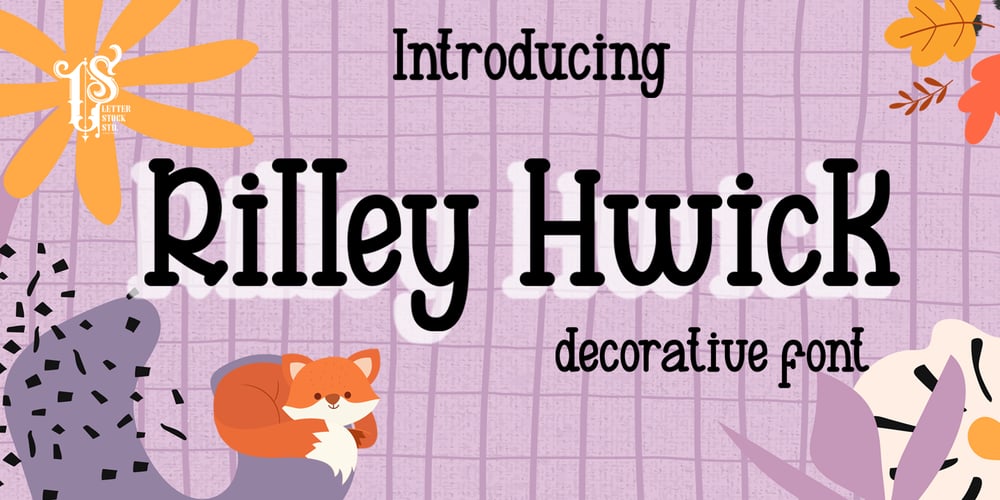
Rilley Hwick Font Family was designed by Studio LetterStock and published by LetterStock. Rilley Hwick contains 1 styles and family package options. Rilley Hwick is a decorative font that was inspired by lettering design that i saw on instagram, and it was crafted by hand to add a natural handmade feeling and i make it clean with pentool.If you looking for decorative font that have a unique style for your title or even branding and logotype, Rilley Hwick is a great choice for that purpose.Opentype featuresRilley Hwick font is very good looking in logotype, labels, decorative lettering, playful design, product packaging, invitation titled, advertising and others.This decorative font works with folowing languages:Afrikaans, Albanian, Asu, Basque, Bemba, Bena, Chiga, Cornish, Danish, English, Estonian, Filipino, Finnish, French, Friulian, Galician, Gusii, Indonesian, Irish, Italian, Kabuverdianu, Kalenjin, Kinyarwanda, Low German, Luo, Luxembourgish, Luyia, Machame, Makhuwa-Meetto, Makonde, Malagasy, Malay, Manx, Morisyen, North Ndebele, Norwegian Bokmål, Norwegian Nynorsk, Nyankole, Oromo, Portuguese, Romansh, Rombo, Rundi, Rwa, Samburu, Sango, Sangu, Scottish Gaelic, Sena, Shambala, Shona, Soga, Somali, Spanish, Swahili, Swedish, Swiss German, Taita, Teso, Vunjo, Zulu.Thank you for using this font.LS